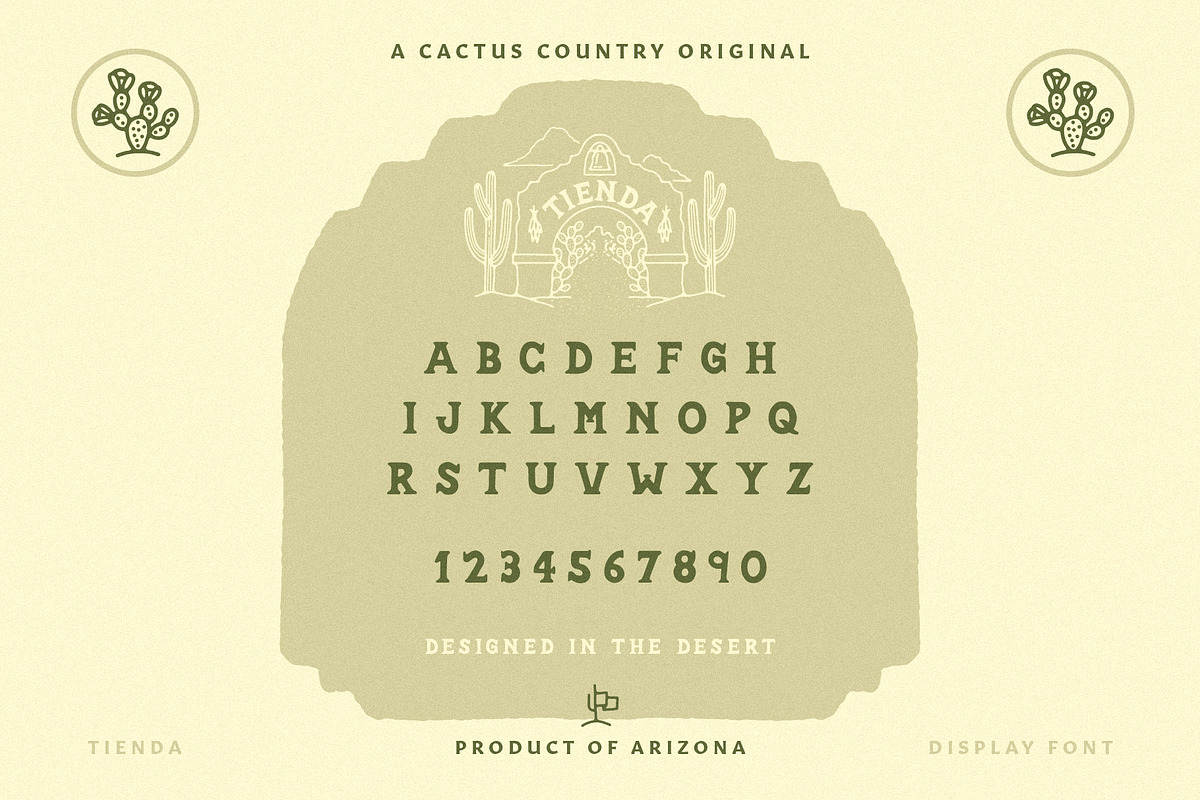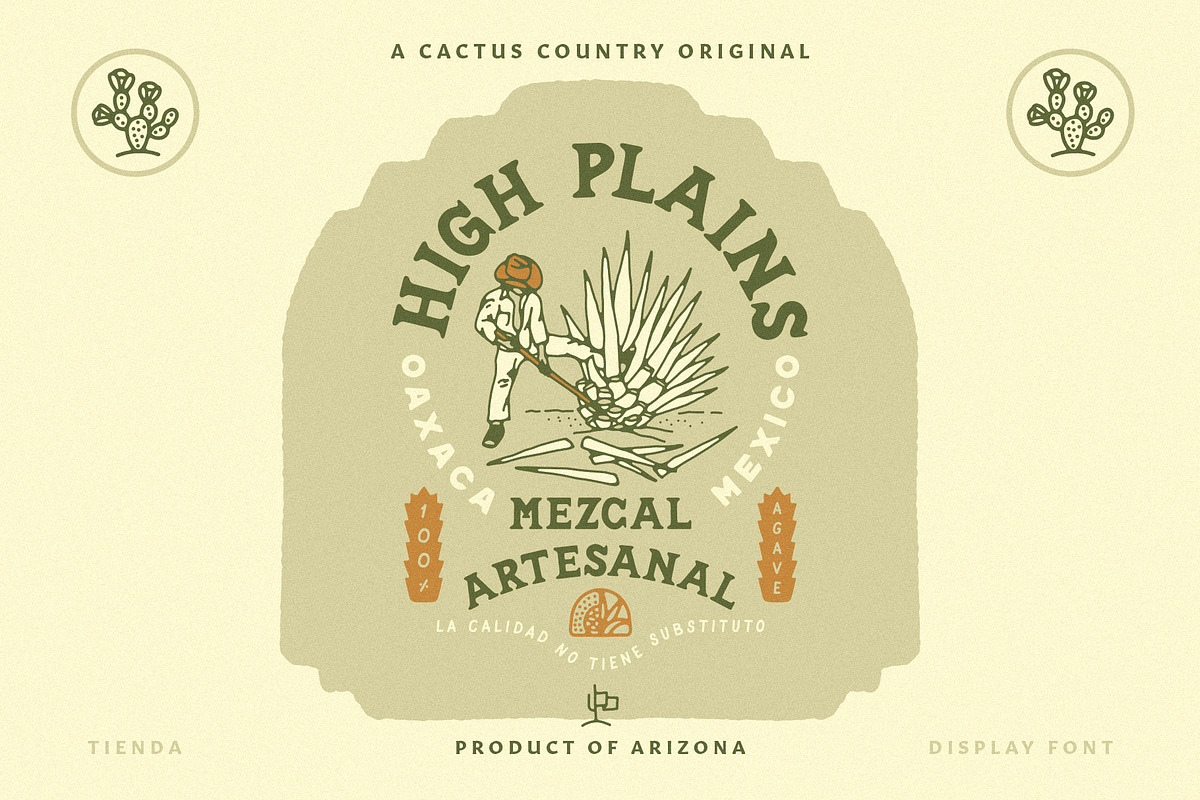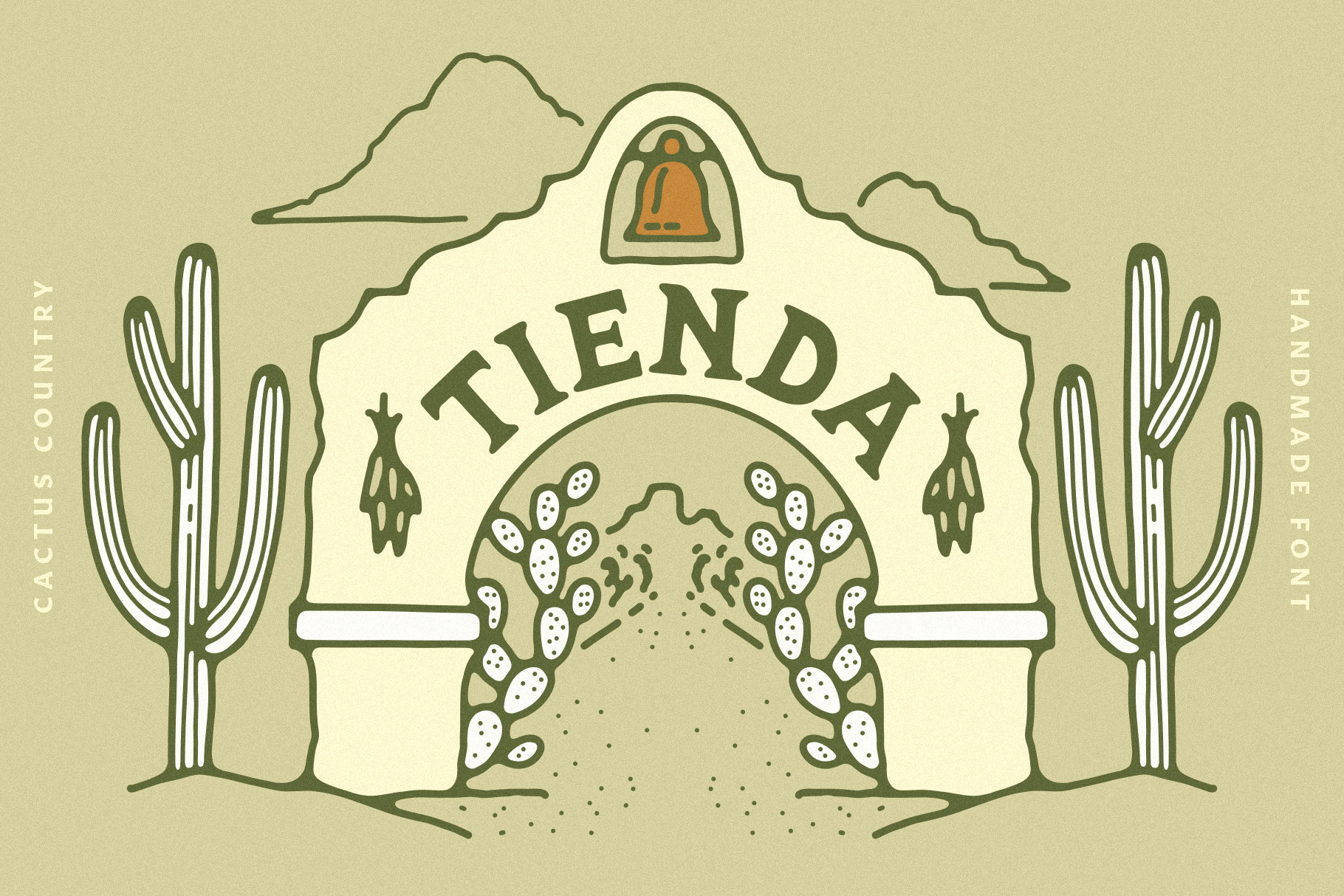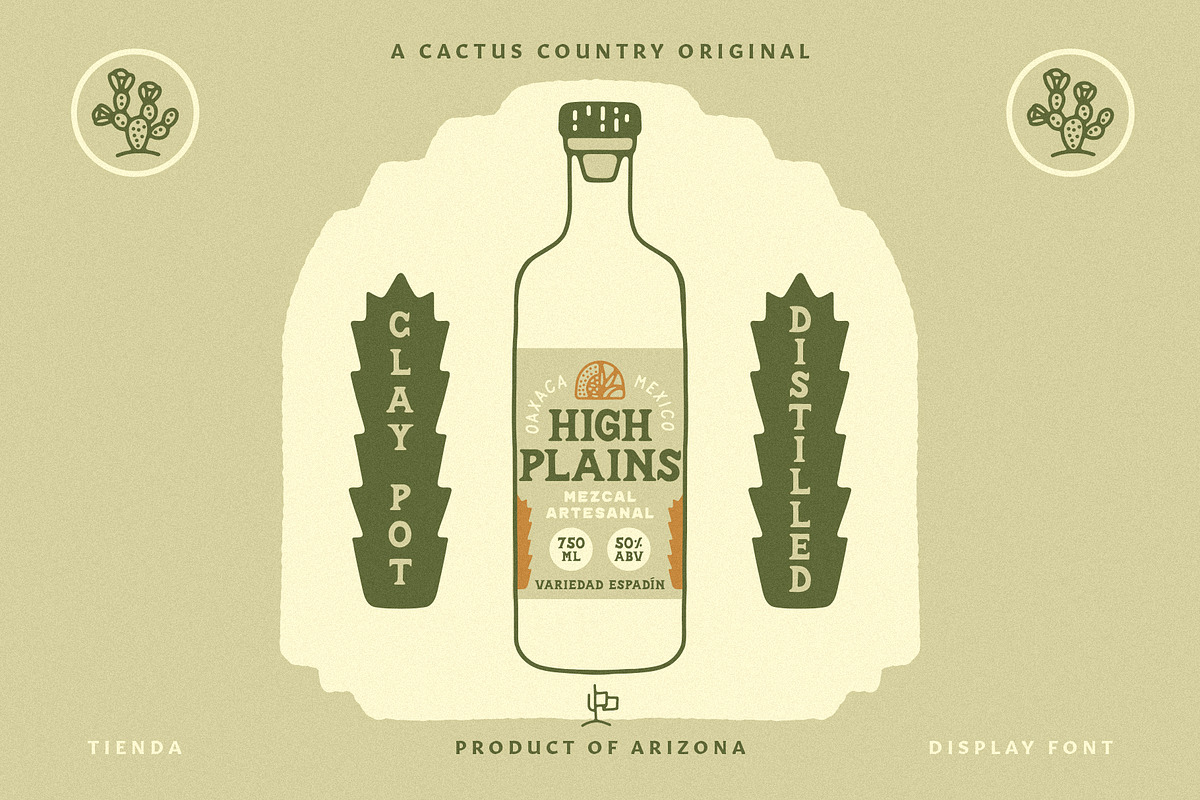
Tienda Display Font
Introducing Tienda, the official font of the Cactus Country store. Inspired by the do it yourself entrepreneurial shop owner attitude, this display font features hand-drawn consistent inconsistencies with sharp yet soft, slightly rounded welcoming serifs and funky letterforms.